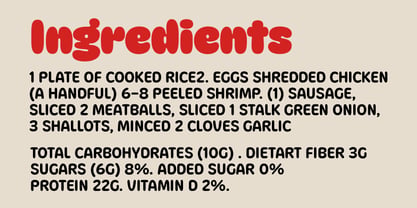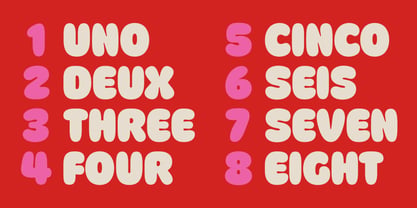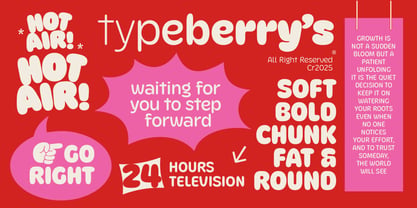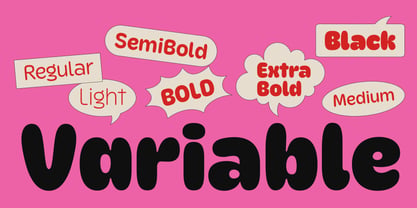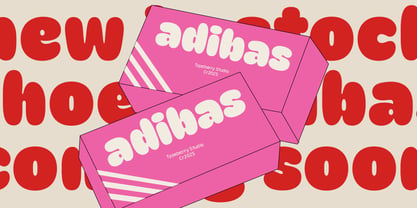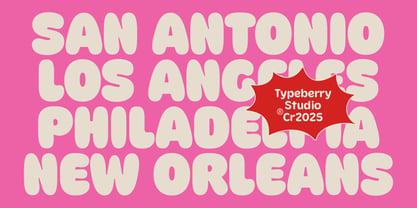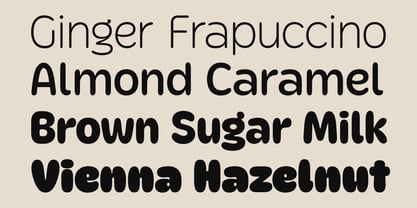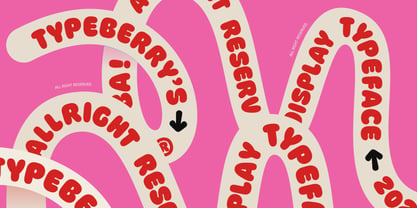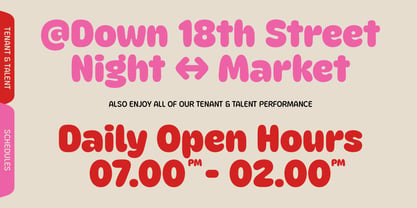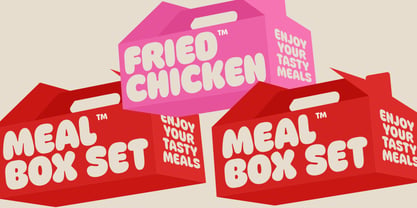
Boba
by Typeberry
The Boba Font Family was designed by Annas Alam Yahya, Bagus Arya Kirana, Michola Putra Siswandi and published by Typeberry. Boba contains 7 styles and family package options. More about this family
Boba Variable is a soft, rounded display typeface with a playful and friendly personality. Inspired by sweet desserts, beverages, and joyful branding, this font features smooth curves and bold shapes that instantly grab attention while remaining highly legible.
Designed as a variable font, Boba Variable includes 7 weights:
Light, Regular, Medium, SemiBold, Bold, Extra Bold, and Black — giving designers full flexibility for a wide range of creative projects.
Boba Variable is perfect for: Branding & logo design, Food & beverage packaging, Posters and headlines, Social media graphics, Merchandise, Kids, café, and lifestyle brands
With its cheerful character and strong visual impact, Boba Variable helps your designs feel warm, fun, and memorable.